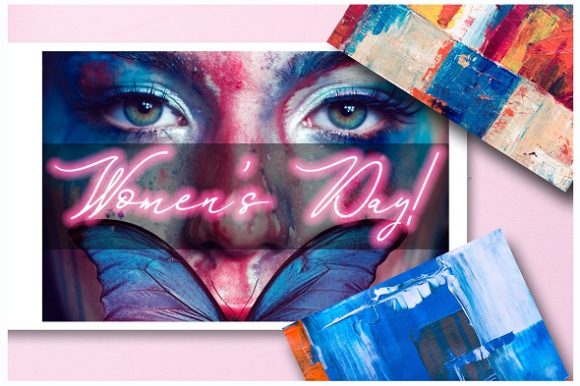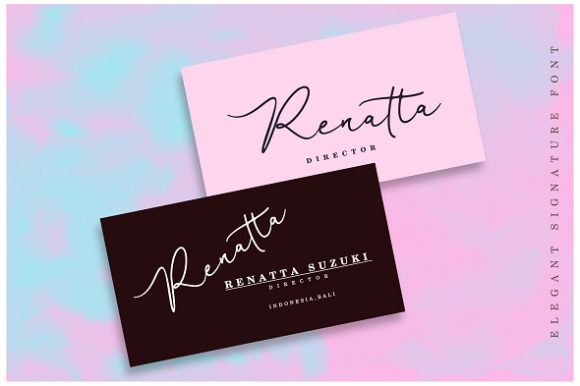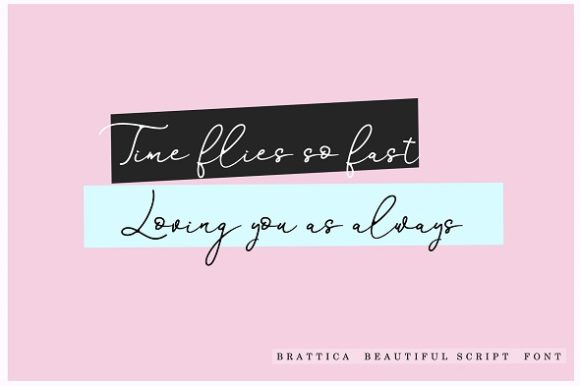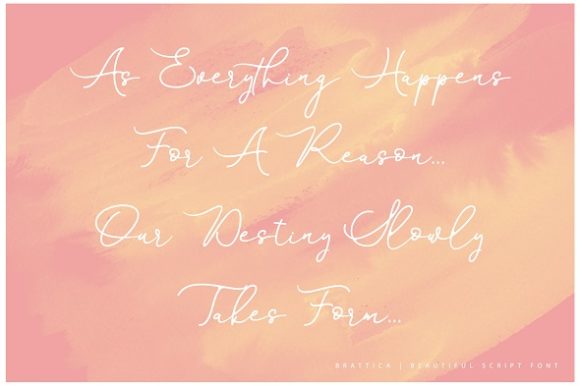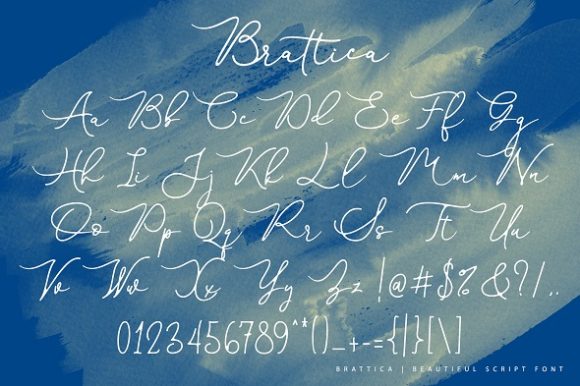
The Perfect Blend of Elegance and Ease: Brattica Script Font
Have you ever been stuck in a creative rut, searching for the perfect font to bring your design to life? You’re not alone. We’ve all been there, scrolling through font collections, hoping to stumble upon that elusive combination of style and usability. And then, it happens. You find it – the Brattica Script Font.
This beautiful script font is more than just a pretty face. With its natural, elegant touch, it’s designed to add a sophisticated flair to any design project. Whether you’re a seasoned pro or just starting out, the Brattica Script Font is an invaluable tool in your creative arsenal. Its ease of use and versatility make it a go-to choice for designers of all levels.
Brattica Script Font Key Features
- Font Family: Brattica Script
- Character Count: 900+ glyphs, including Latin, Cyrillic, and Greek alphabets
- Unique Characteristics: Elegant, cursive script with subtle flair and flair variation, suitable for invitations, wedding stationery, and other creative applications
Designer Review: Brattica Script Font
Brattica Script Font is a beautiful, elegant script font that works well in various design applications. ✨ The flowing connections and fluid lines evoke a sense of sophistication and refinement. It’s perfect for creating titles, headings, and other text elements that need a touch of luxury.
One of the standout features of Brattica Script Font is its versatility. ✨ It comes in multiple weights, from Light to Heavy, allowing designers to achieve the perfect balance of elegance and legibility. Additionally, the font is highly legible, even at smaller font sizes.
However, there are some limitations to consider: ⚠️ The font may not be the best choice for body text, as it can be difficult to read at larger font sizes. Additionally, the font’s flow and connections can sometimes make it challenging to achieve perfect text alignment.
- Beautiful, elegant script font
- Multiple weights (Light to Heavy)
- Highly legible, even at smaller font sizes
- Versatile and suitable for various design applications
In conclusion, Brattica Script Font is a stunning addition to any designer’s toolkit. While it may have some limitations, its beauty, elegance, and versatility make it a worthwhile investment for any design project.
Practical Application Guide for Brattica Script Font
Tips for Getting the Most Out of Brattica Script Font
Use Brattica Script Font for titles, headings, and emphasis.
Pair Brattica Script Font with a clean sans-serif font for body text.
Food and beverage branding.
Stationery and greeting cards.
Alternatives to Brattica Script Font
Brattica Script Font is a beautiful script font that adds a touch of elegance to any design. However, if you’re looking for alternatives, here are a few options:
Carolyna Pro is a modern script font that is perfect for fashion, beauty, and lifestyle designs. It has a more refined and sophisticated look compared to Brattica Script Font, making it ideal for high-end branding and advertising.
Comparison: Carolyna Pro has a more polished and elegant feel, whereas Brattica Script Font has a more whimsical and playful vibe.
Great Vibes is a script font that exudes a sense of relaxation and calmness. It’s perfect for designs related to wellness, travel, and food. Compared to Brattica Script Font, Great Vibes has a more fluid and cursive feel.
Comparison: Great Vibes is more laid-back and easy-going, whereas Brattica Script Font is more energetic and playful.
Alex Brush is a elegant script font that is perfect for designs related to art, culture, and literature. It has a more refined and sophisticated look compared to Brattica Script Font, making it ideal for high-end branding and publishing.
Comparison: Alex Brush has a more polished and refined feel, whereas Brattica Script Font has a more whimsical and playful vibe.
Dancing Script is a fun and playful script font that is perfect for designs related to entertainment, fashion, and lifestyle. It has a more energetic and dynamic feel compared to Brattica Script Font, making it ideal for social media and advertising.